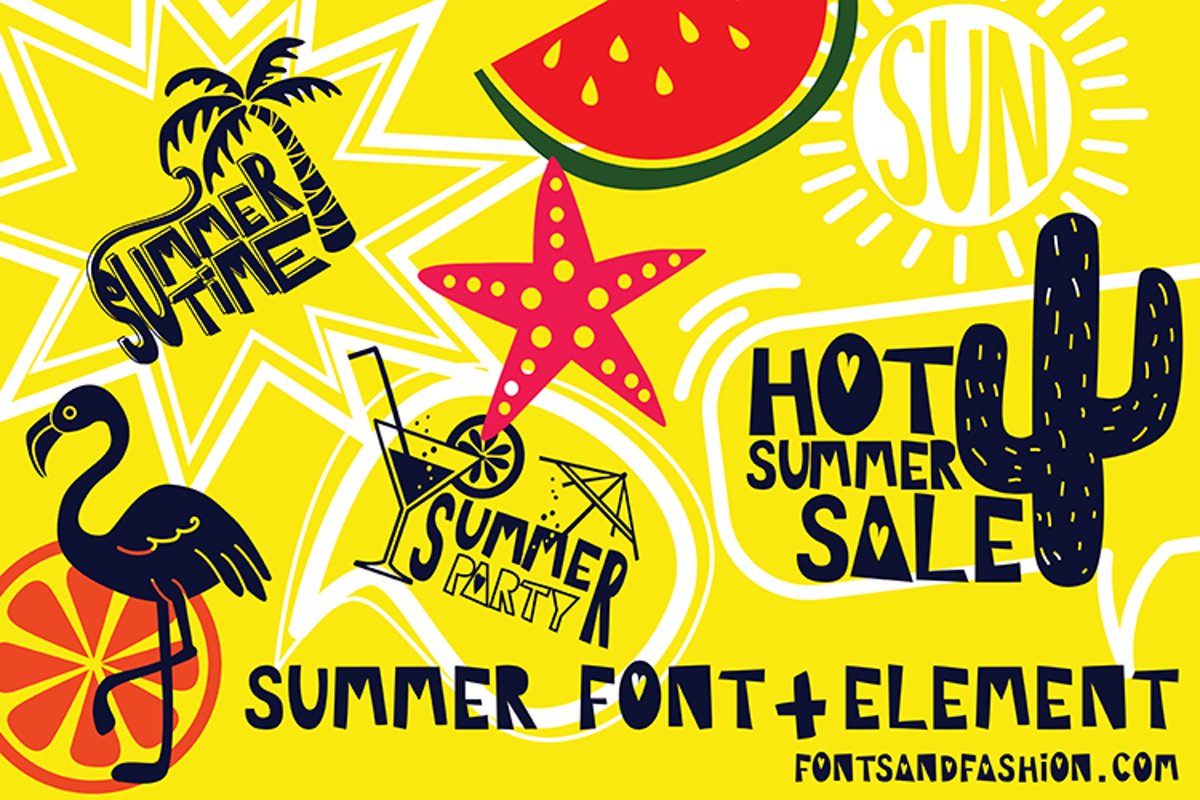
SUMMER
Summer is a fantastic
set of fonts, numbers and elements
handmade inspired by summer.
Used in synergy with each other, they will give you
the ability to create multiple
types of original and versatile motifs.
formed by a set of ...
81 items to discover ...
have fun trying the various solutions
possible for advertising signs,
flyers, stickers ... and much more ...